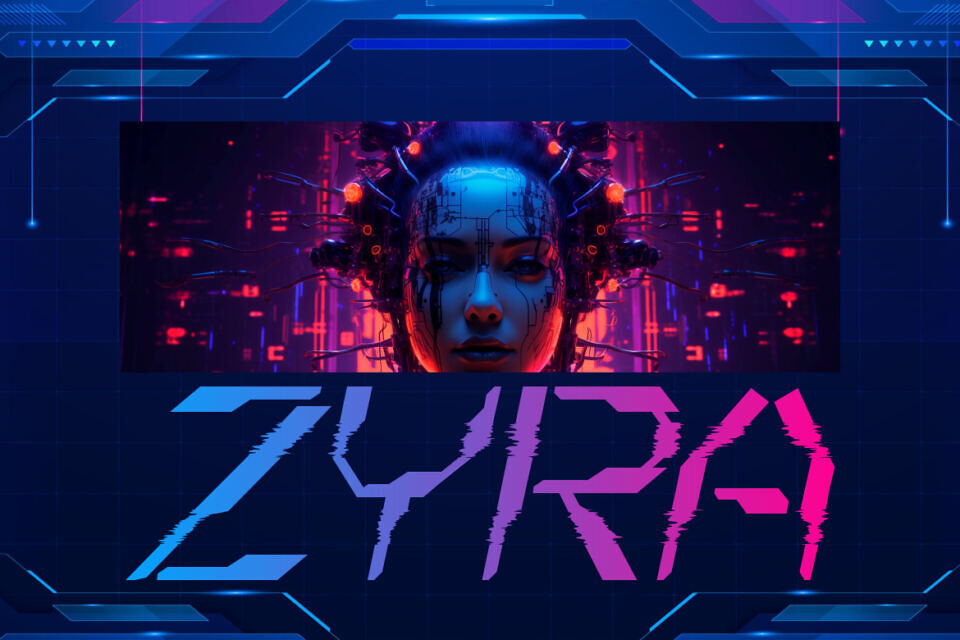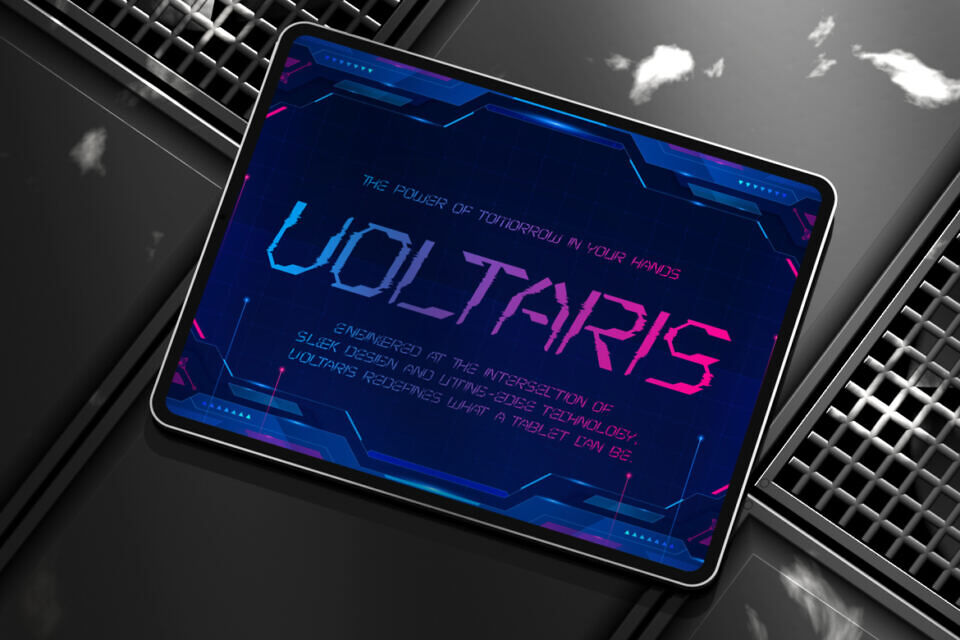
Pulse Display Font
Pulse Display is a futuristic techno font infused with a digital glitch aesthetic and cyberpunk flair. Each character is constructed with angular precision, featuring pixelated breaks and electro-static distortion that mimic high-frequency tech signals.
This font blends crisp, mechanical letterforms with fragmented design elements, producing a highly stylized visual perfect for digital-age storytelling. Neon gradients and sharp outlines accentuate its sci-fi energy, making it ideal for high-impact display needs.